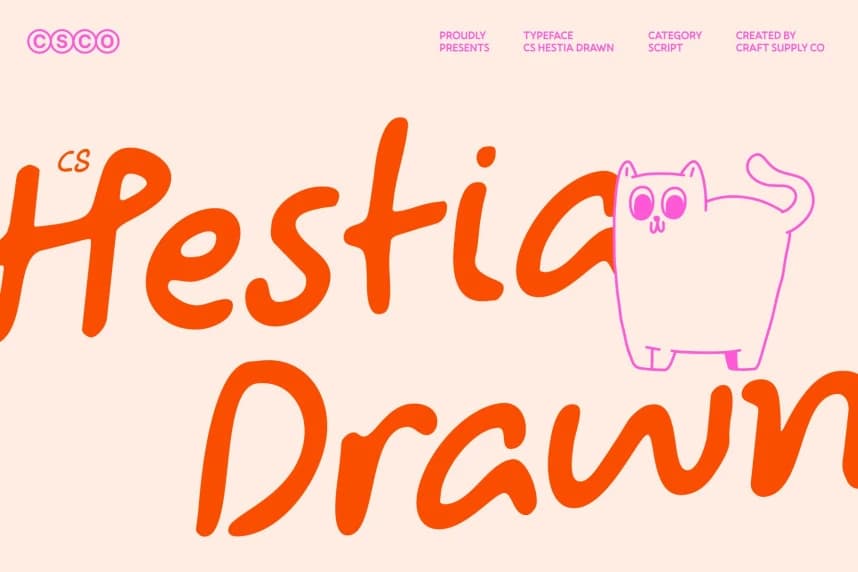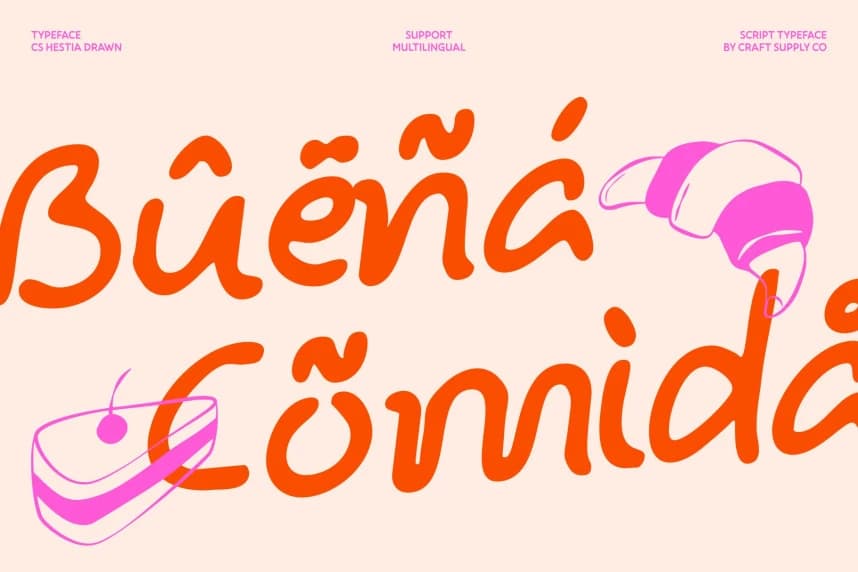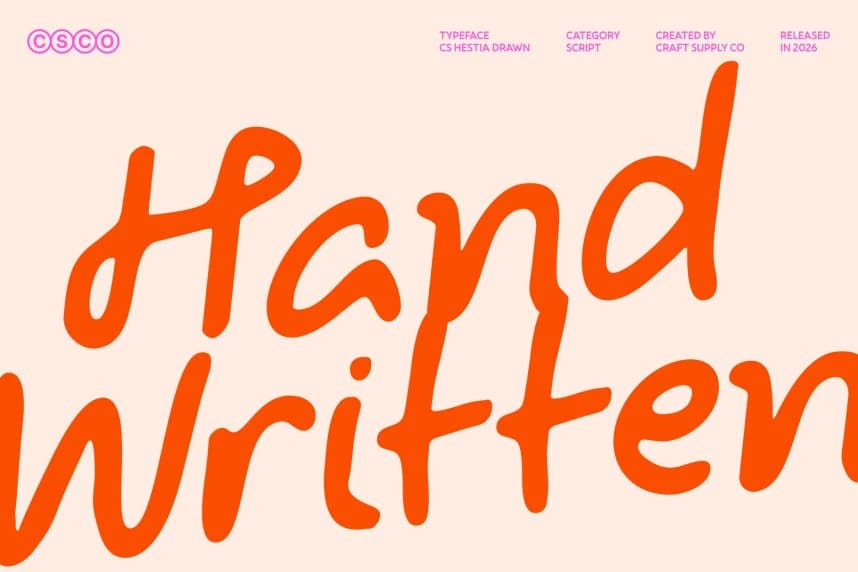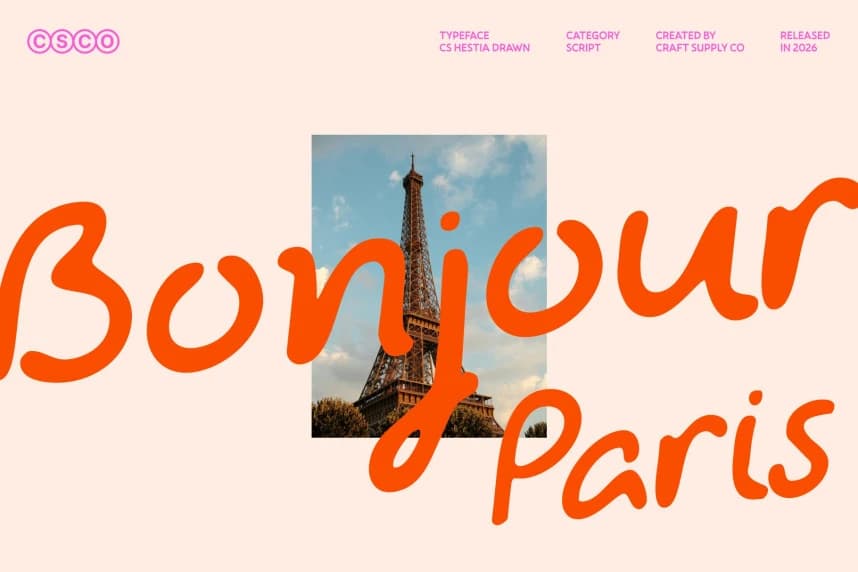
CS Hestia Drawn Font
CS Hestia Drawn Font – Fun Handwritten Display with Playful Energy Energetic Handwritten Style with Friendly Charm. This is a fun handwritten display font created to bring lively, playful energy into your designs.